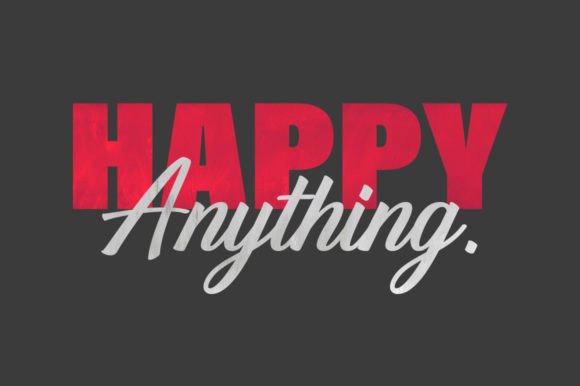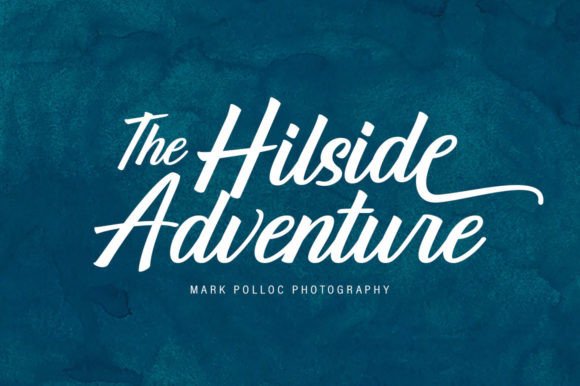
The Rinden Font
The Rinden is a modern brush script font with a simple and classy style inspired by the vintage era when sign painting was considered a very important part of creative projects, storefront signage, branding, and promotional advertisements on the street.